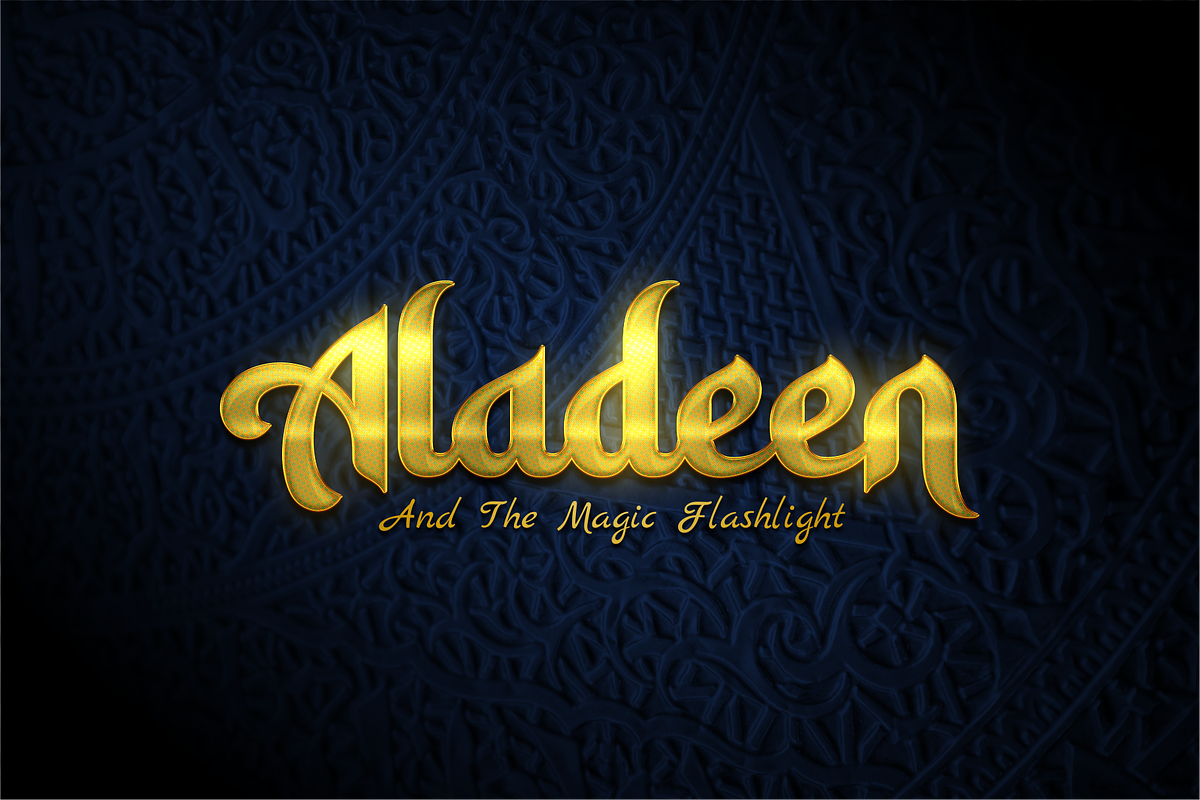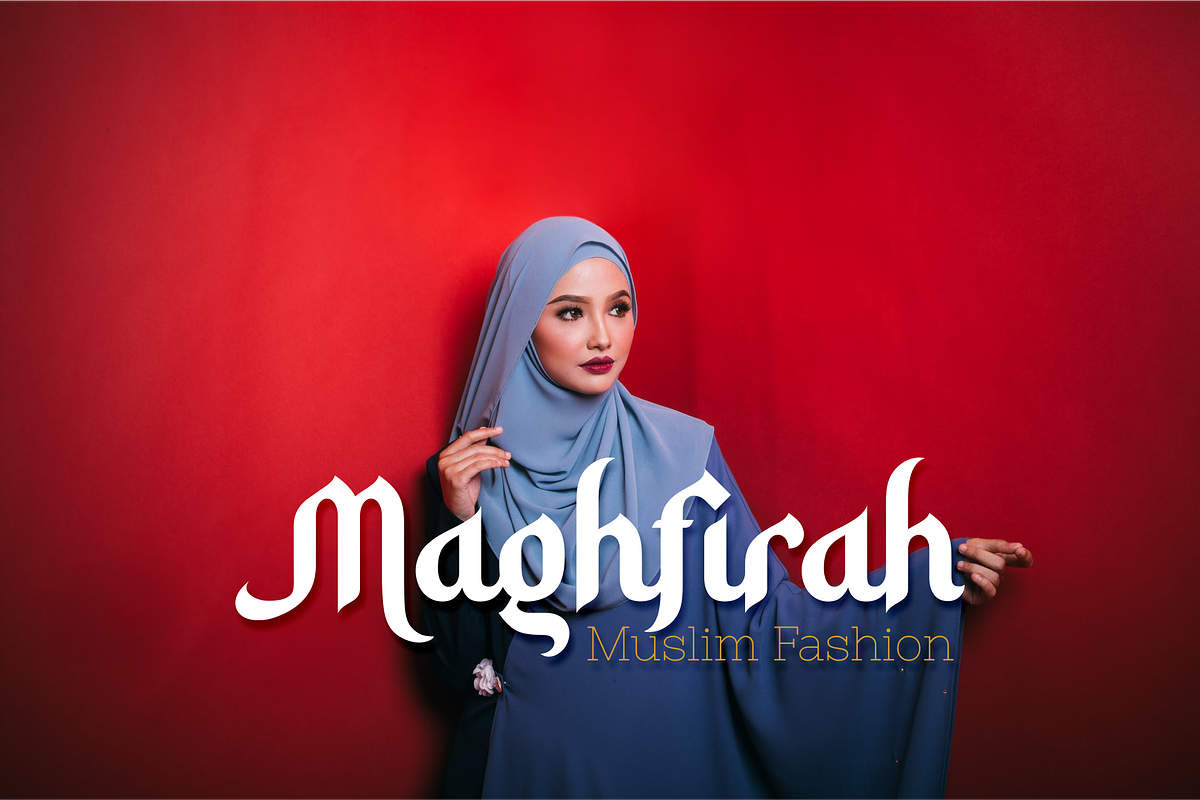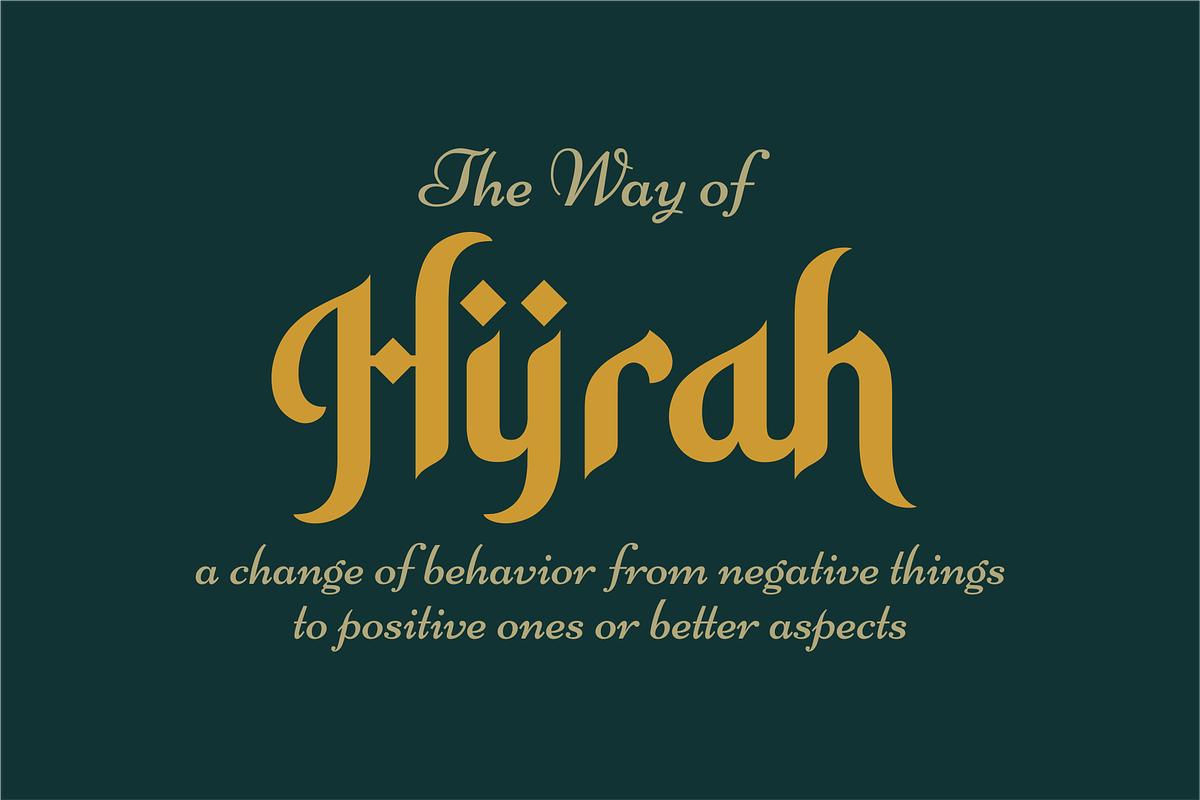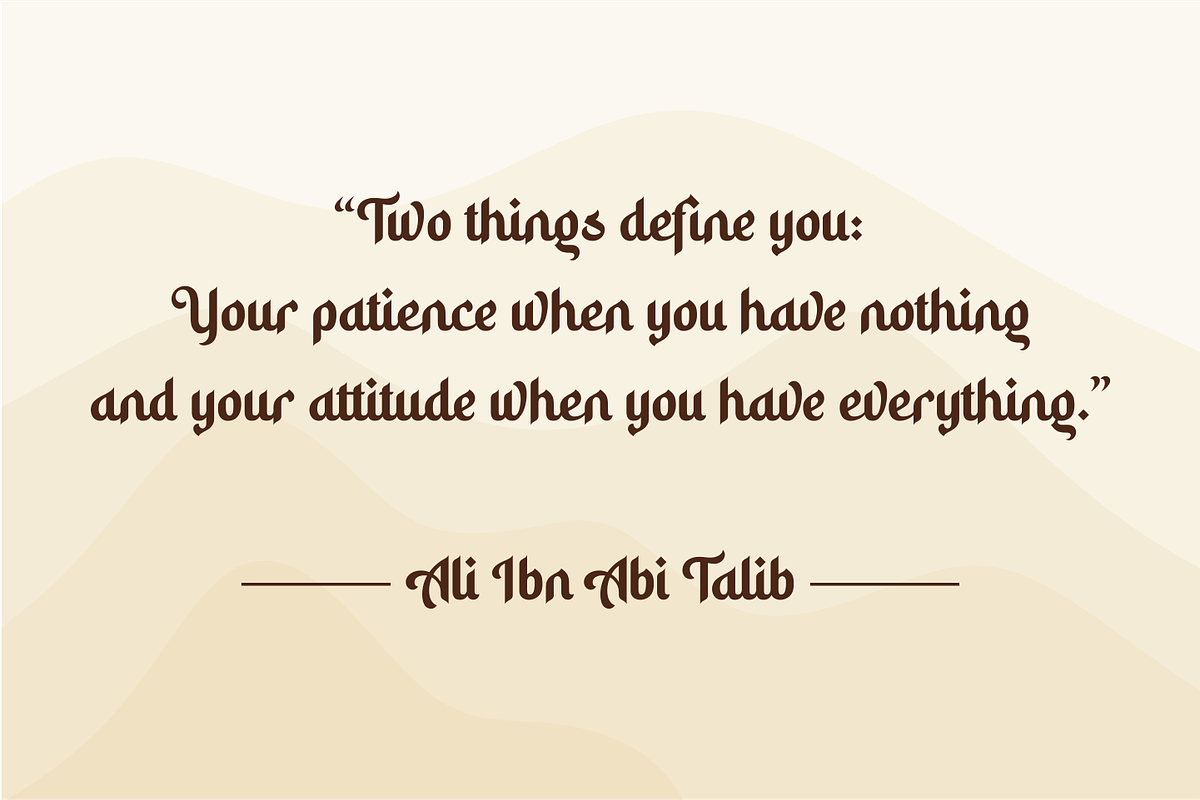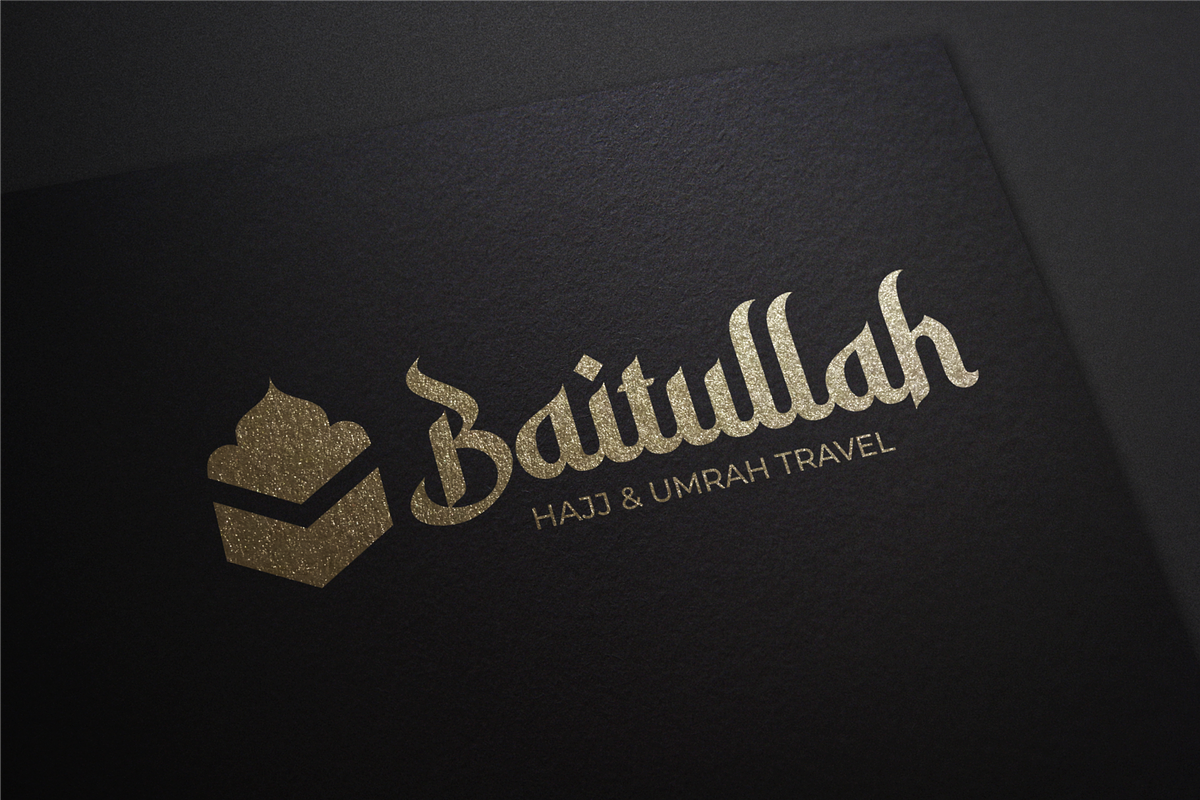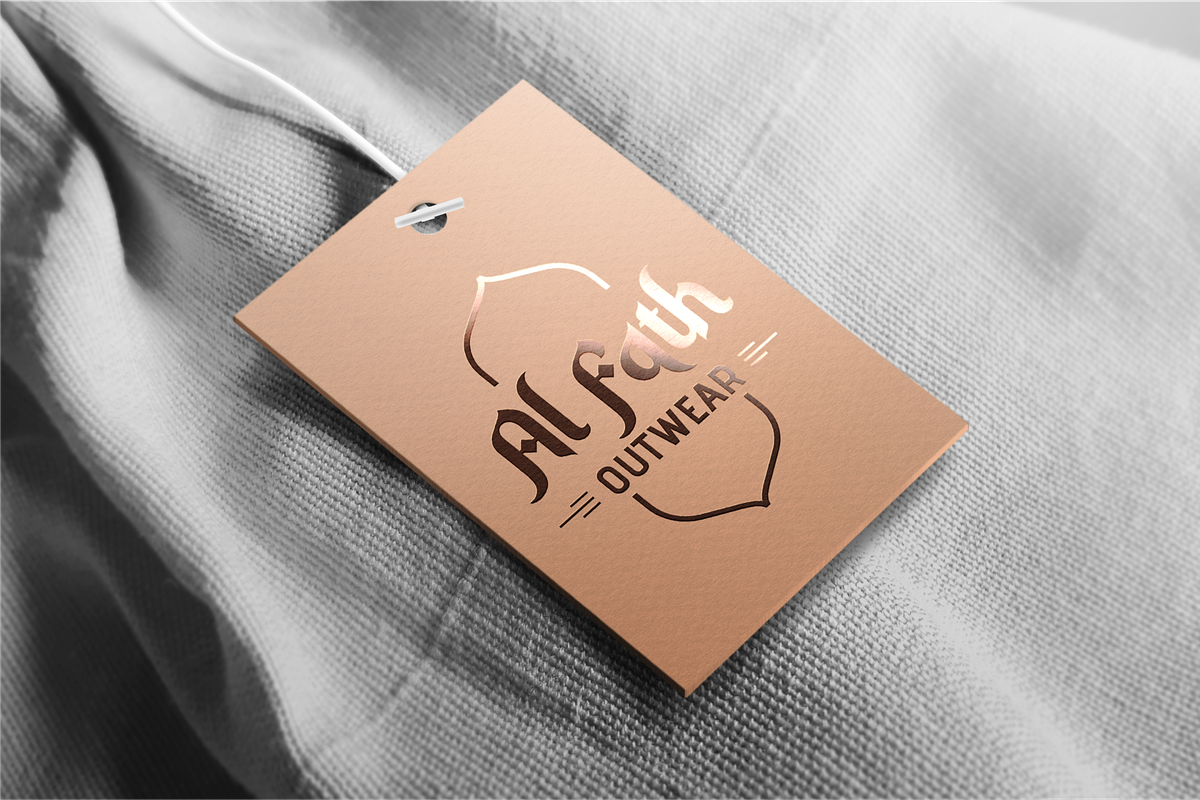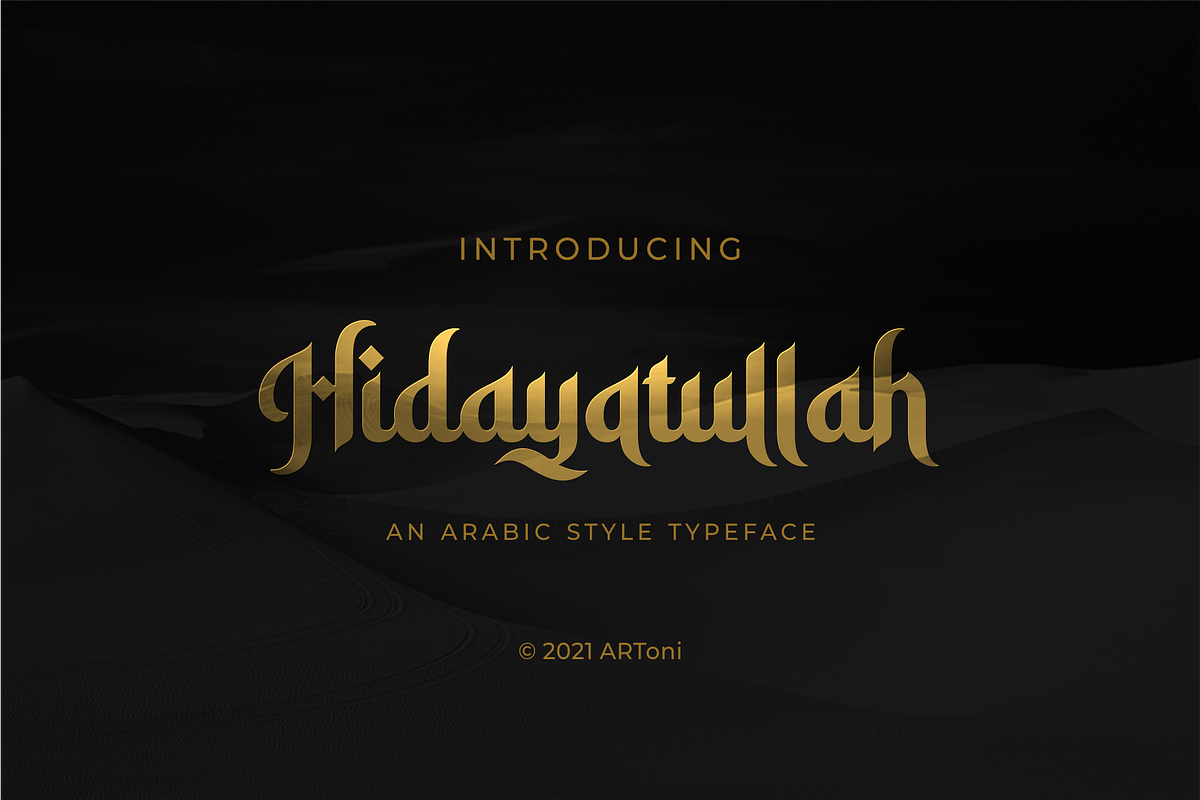
Hidayatullah
Hidayatullah is a bold and distinct display font, featuring Arabic influences. Expertly designed to make your creation look out of this world, this font has the potential to take your ideas far further.